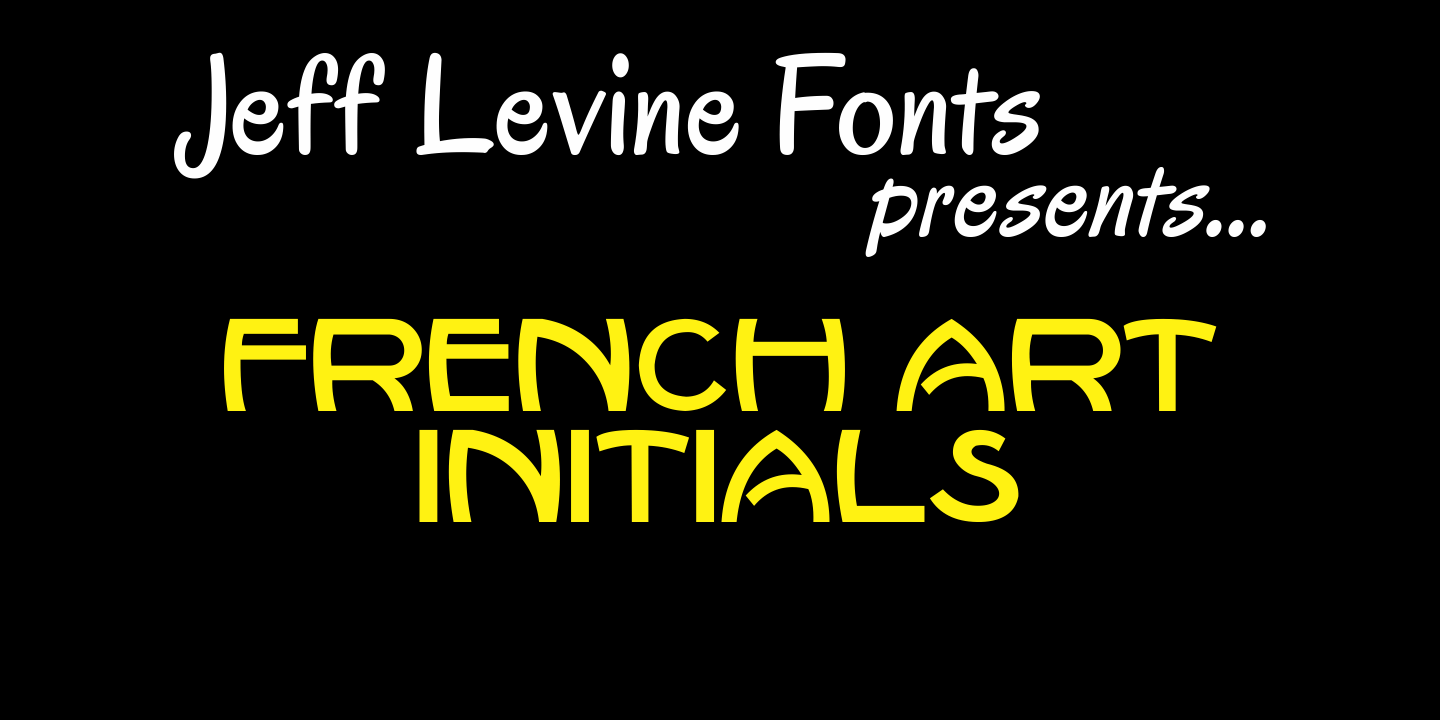
French Art Initials
The source for these hand-drawn initials was an early 20th Century French alphabet book whose pages were displayed online at an image sharing site. This style typifies the Art Noveau period, and makes a wonderful paragraph starter or "drop cap" for your printed projects.
Some users may still want to compose headlines with this font, but be aware there are no punctuation marks, accents or kerning - just the twenty-six initials.